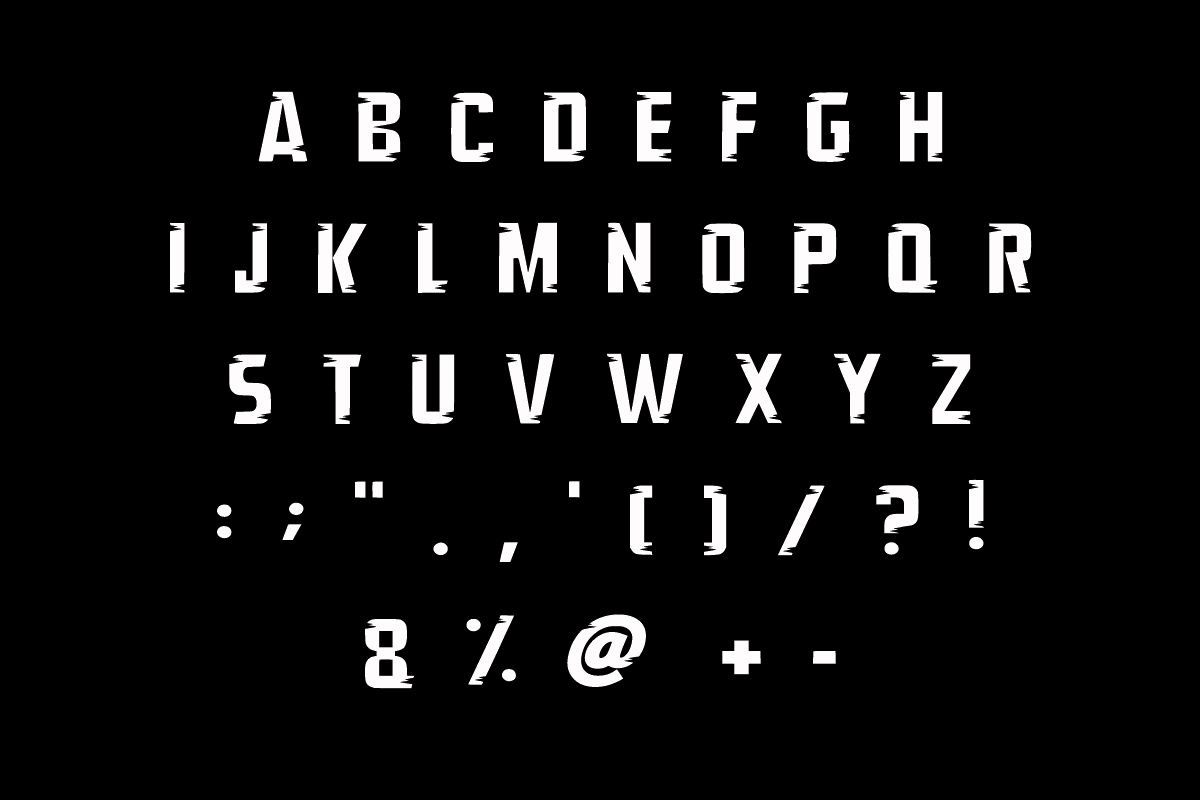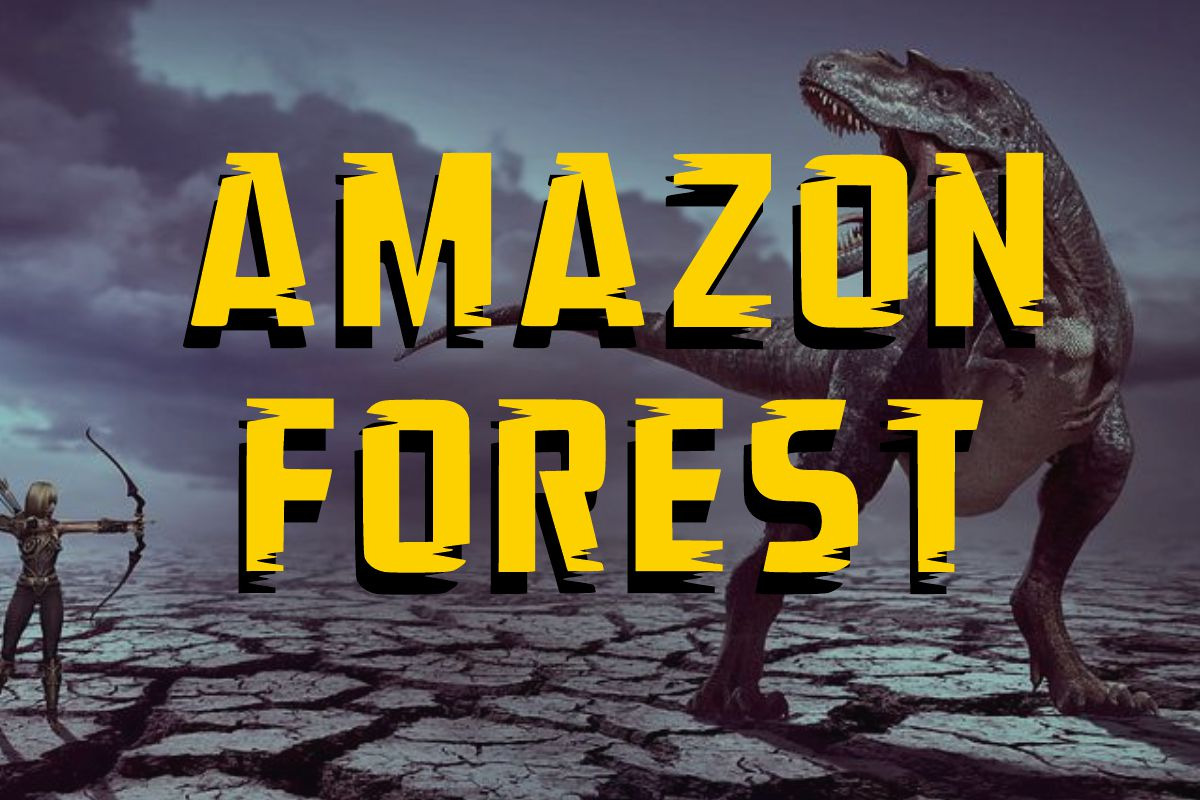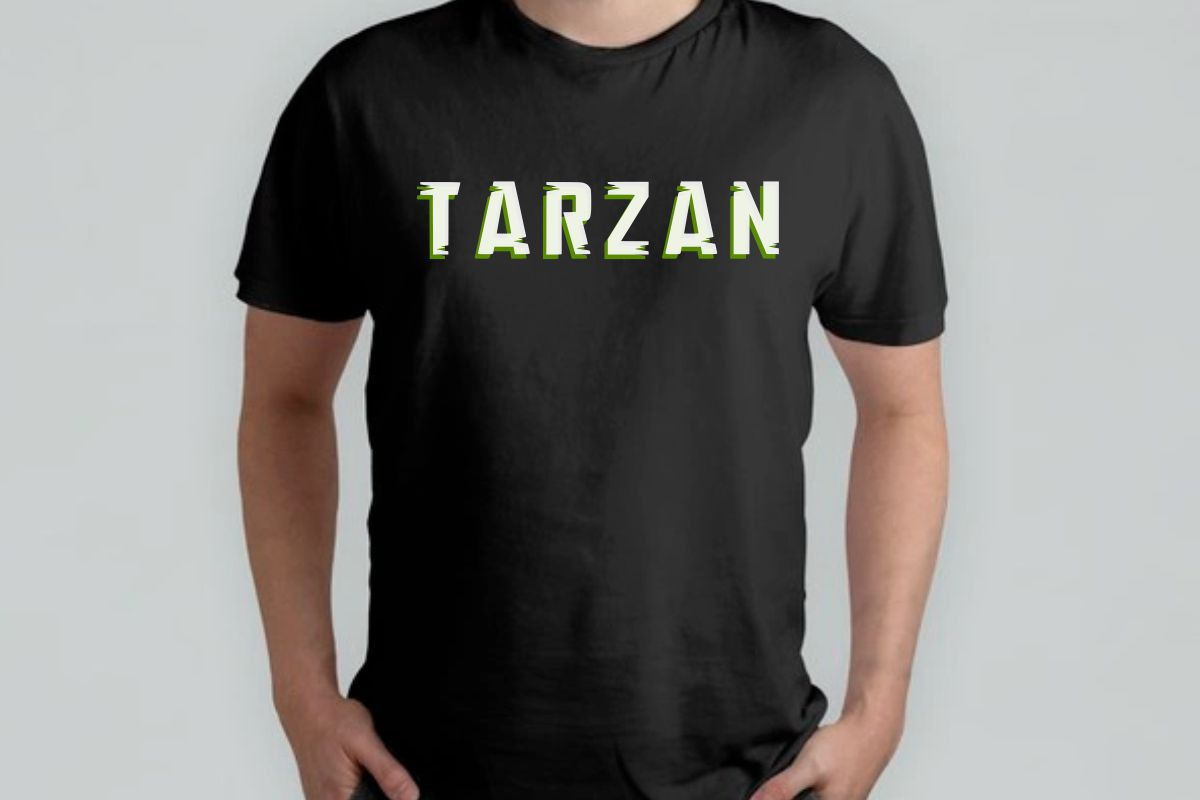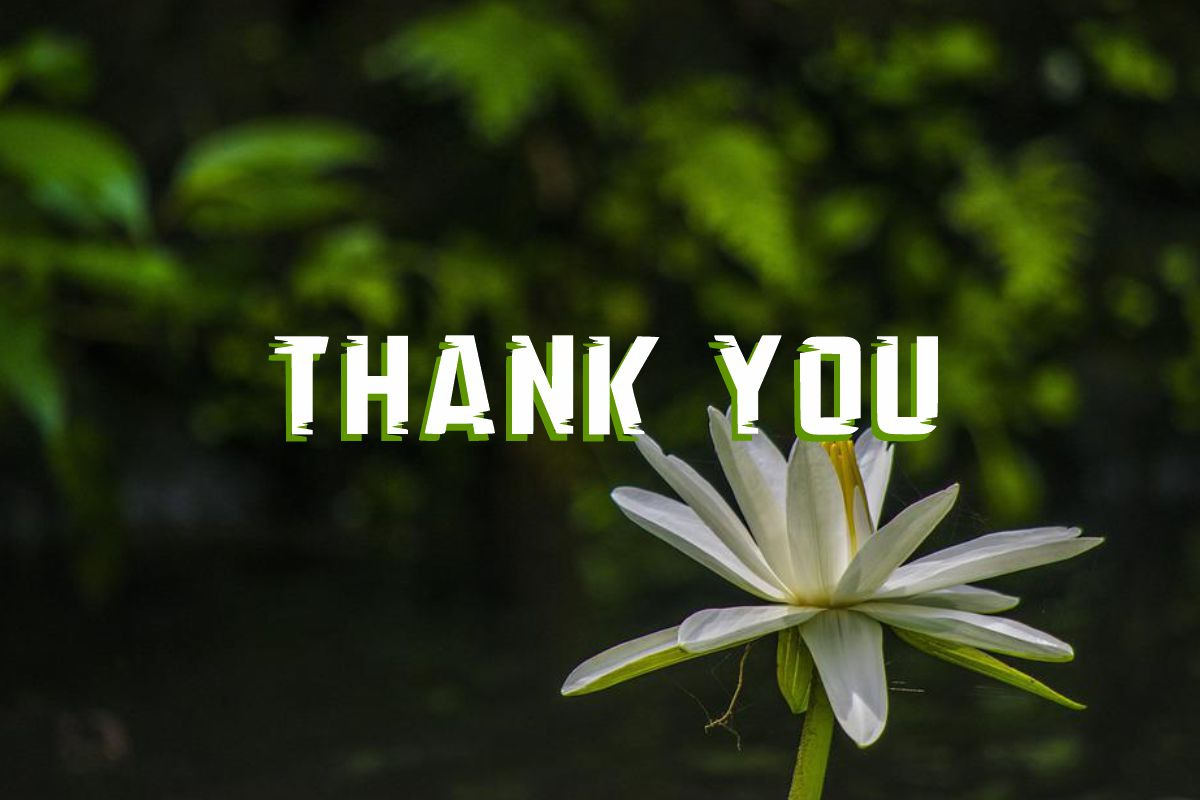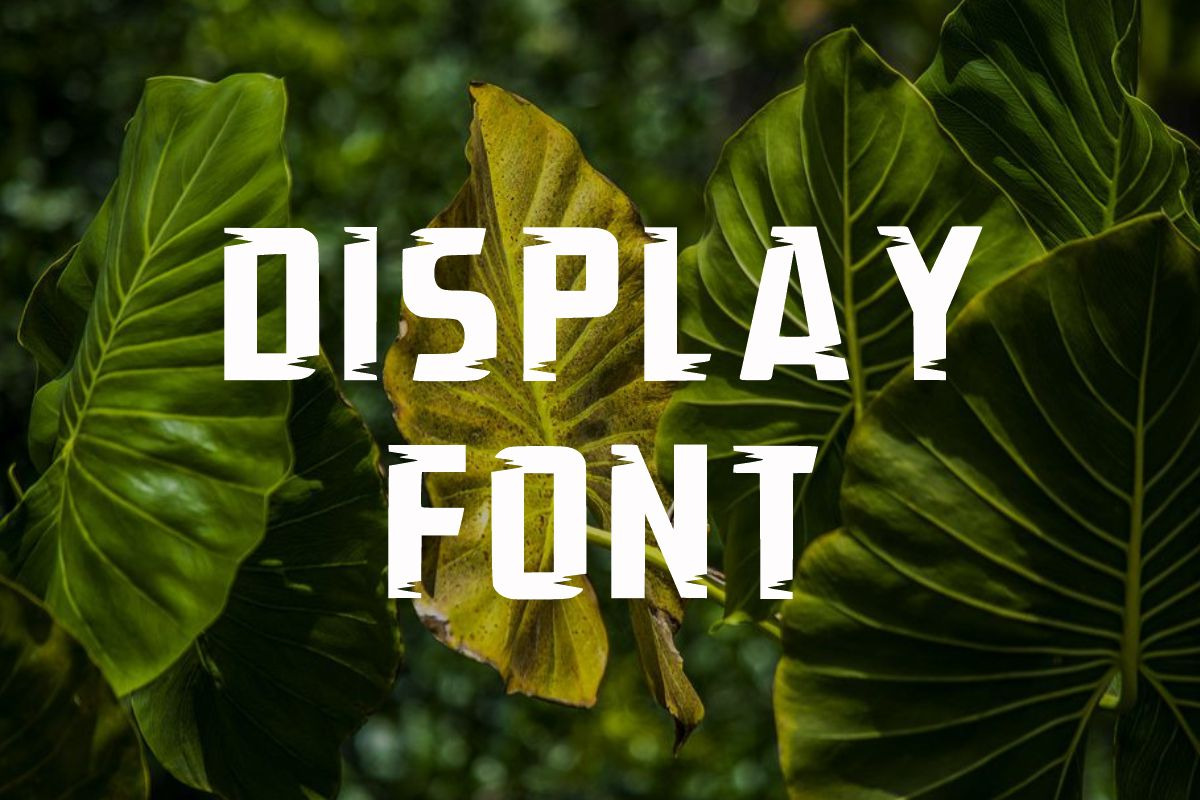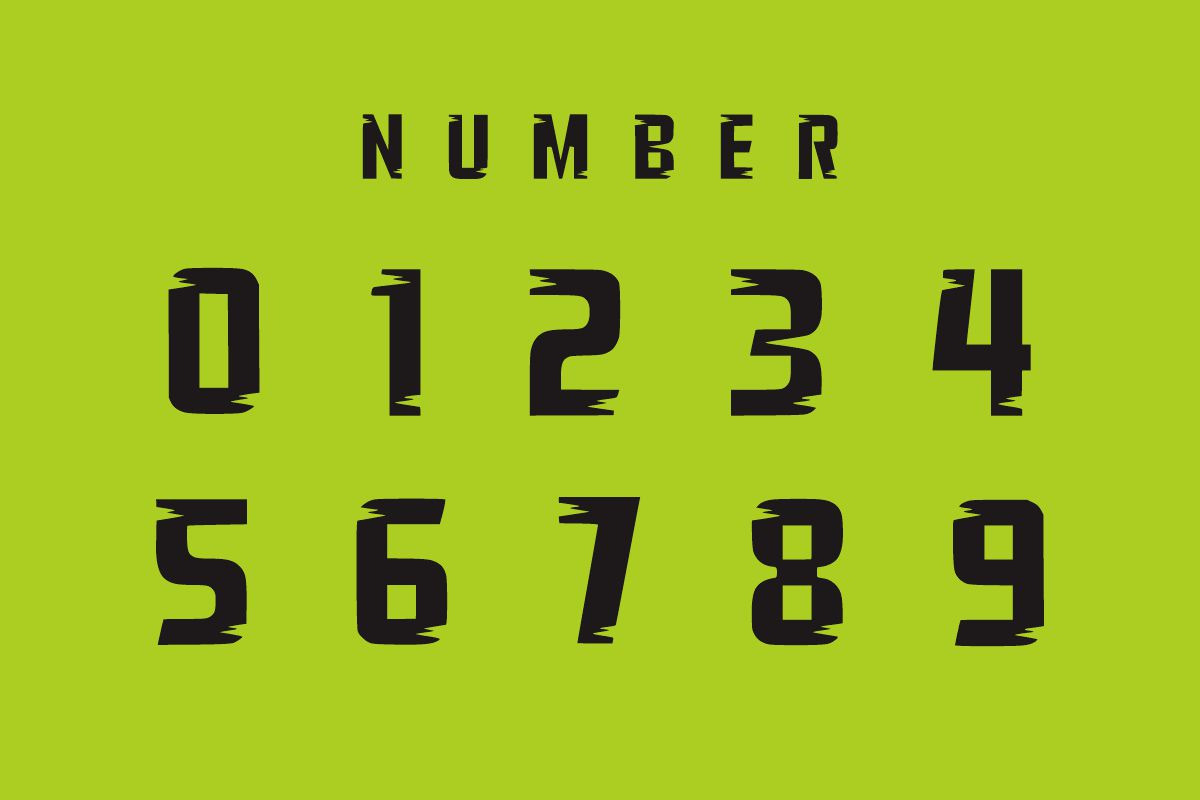
Green Jungle
Green Jungle is a bold and creative display font. Whether you’re using it for crafts, digital design, logos, presentations, or greeting cards, this font is perfect!